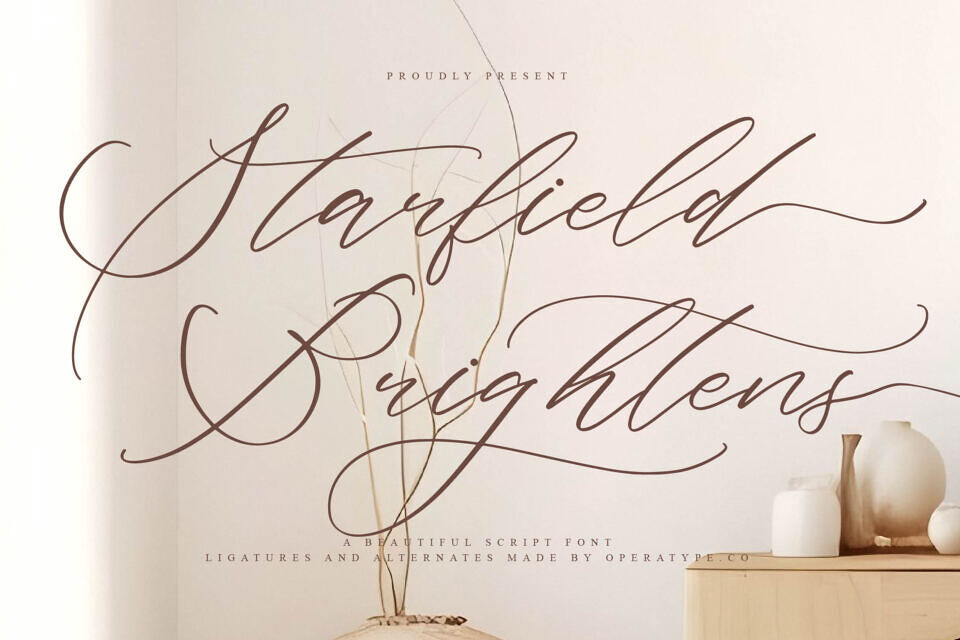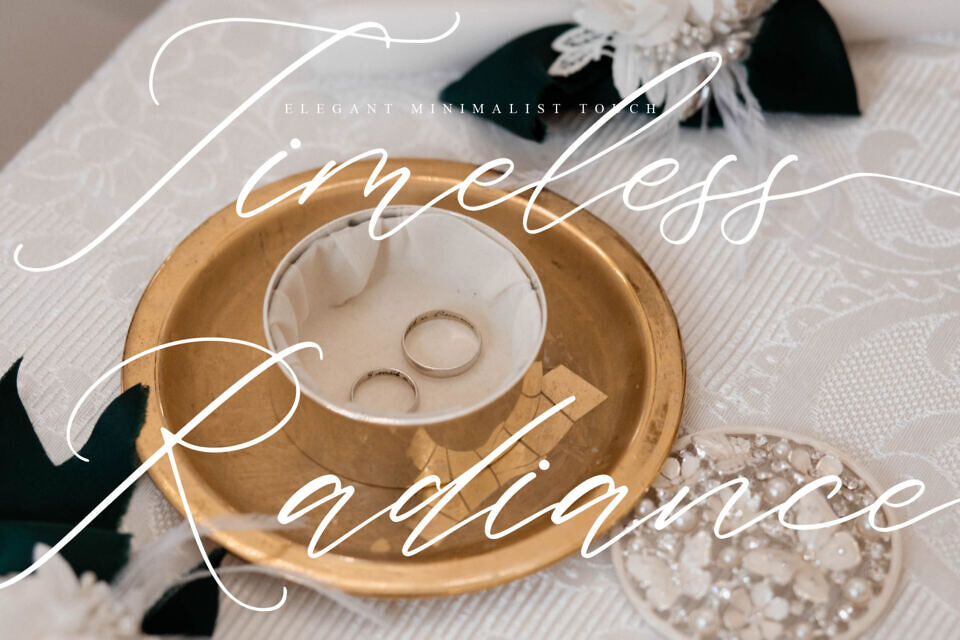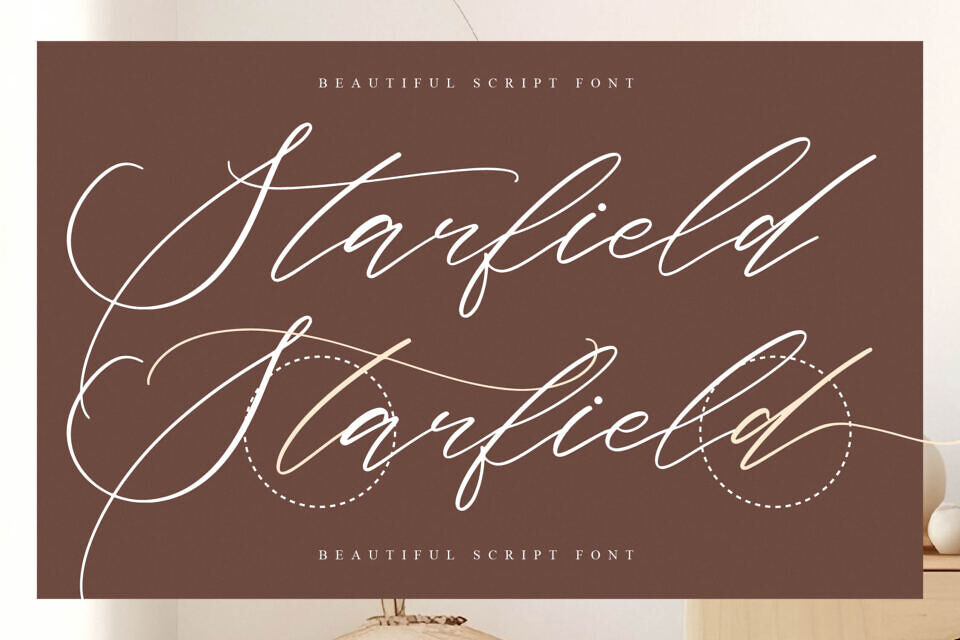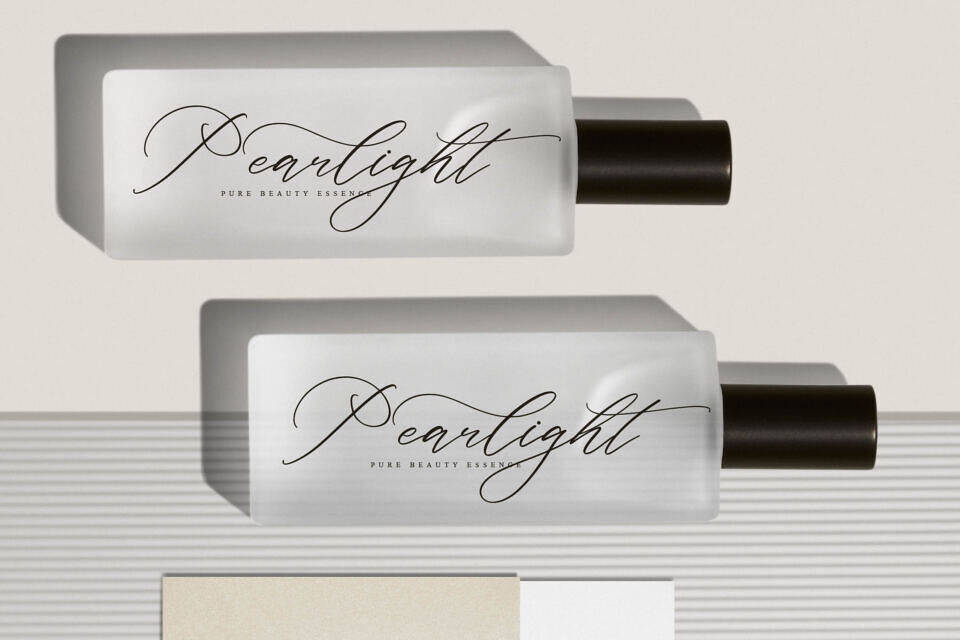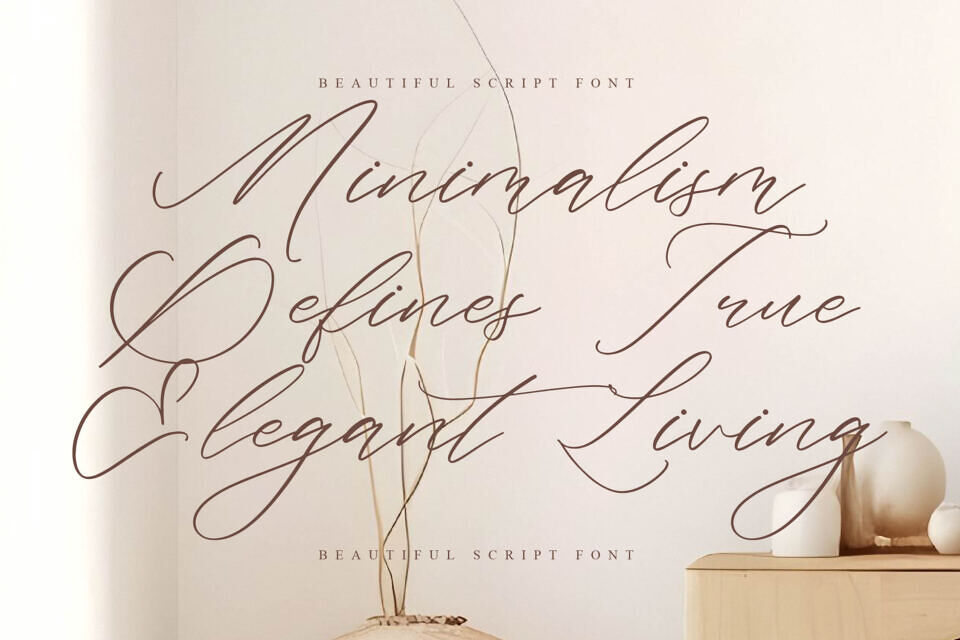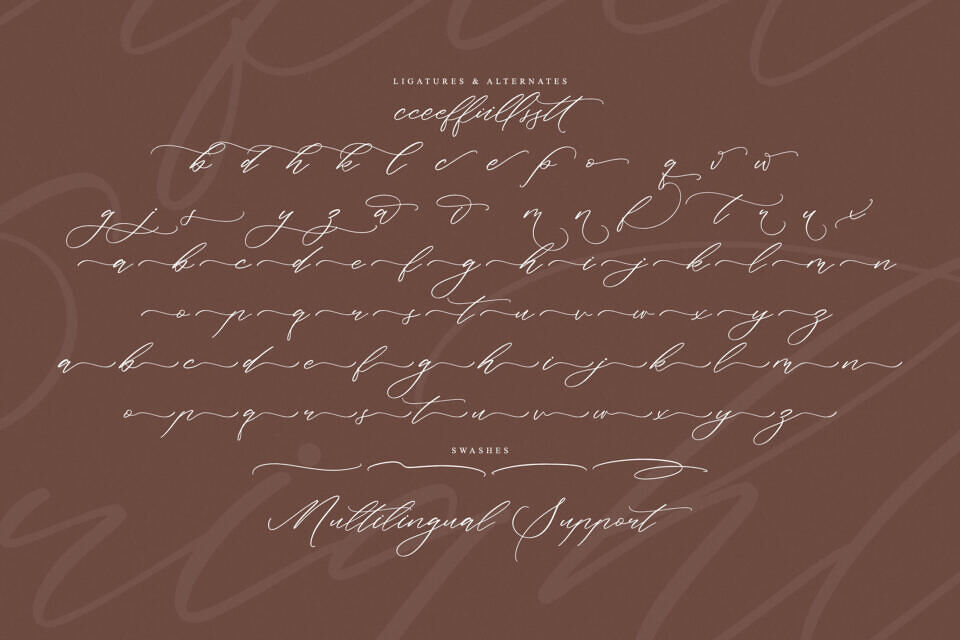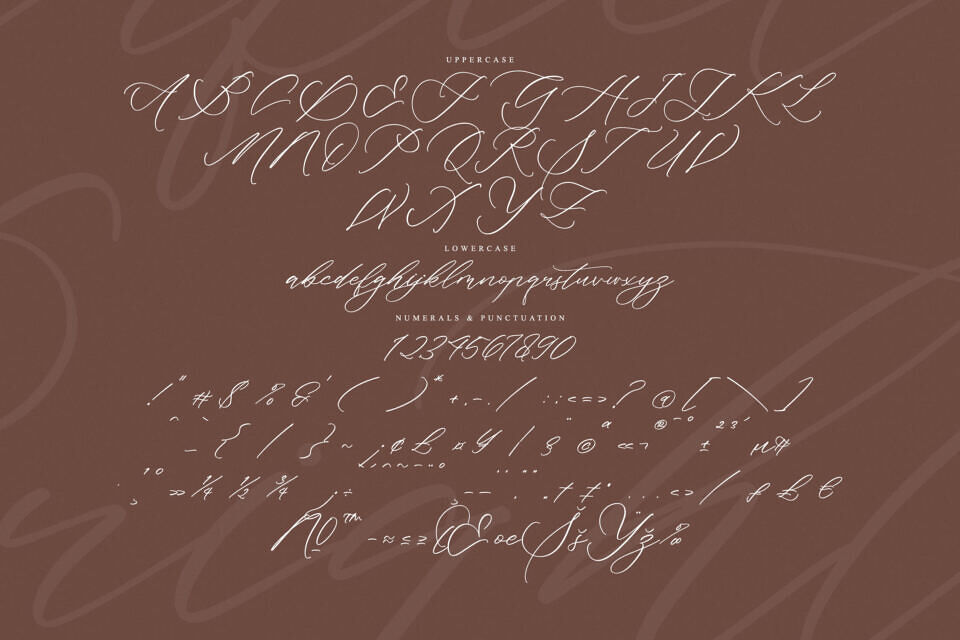
Starfield Brightens is a sophisticated signature script font designed to express elegance, refinement, and modern luxury. Inspired by contemporary handwritten calligraphy, this font features graceful curves, delicate strokes, and dramatic swashes that create a stunning visual presence in every composition.
Carefully crafted to mimic the beauty of natural handwriting, Starfield Brightens offers a seamless flow between characters, enhanced with stylish ligatures and alternates that give each word a custom-lettered appearance. Its slender letterforms and elongated swashes make it an excellent choice for premium branding and high-end design projects.